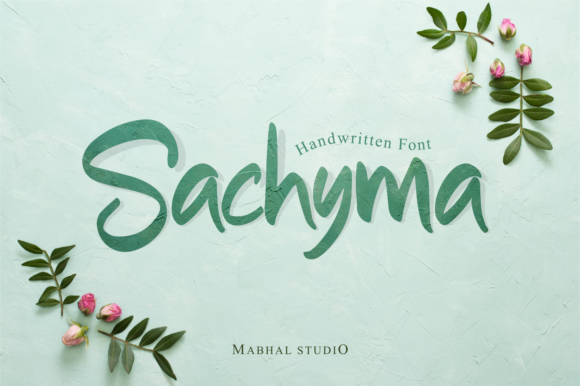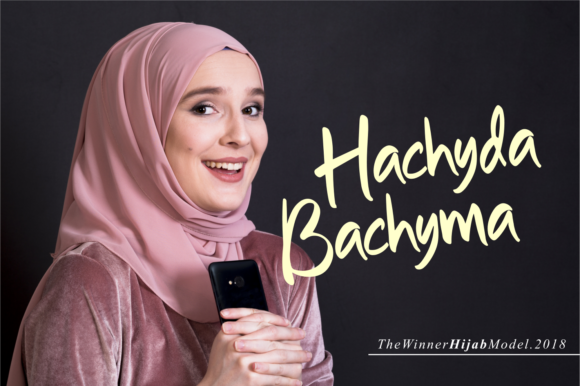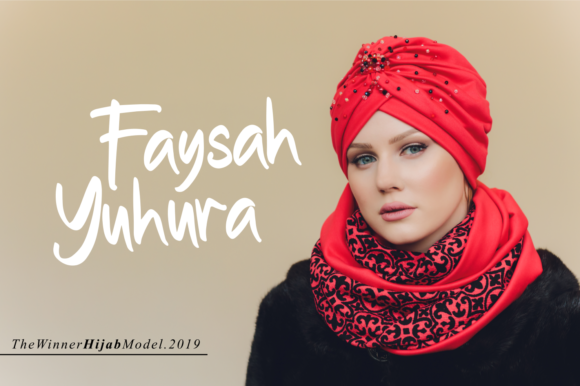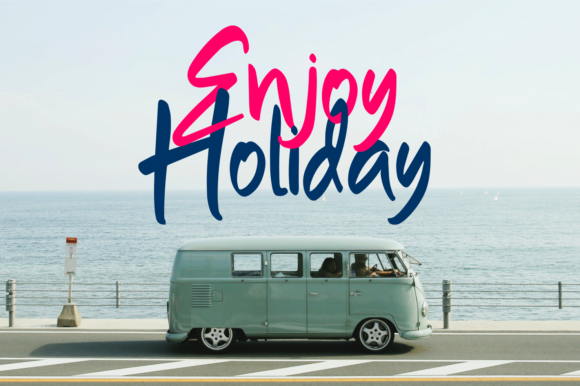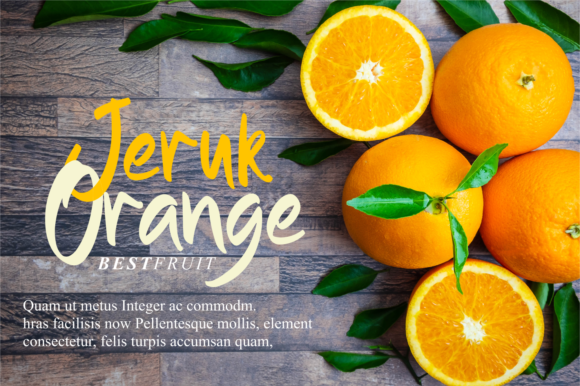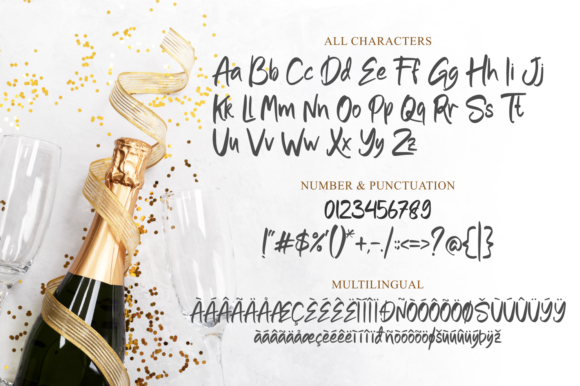
Sachyma Font
About Sachyma Font
Sachyma is a casual, fun script font, created by using a brush pen. Clean and a little bit quirky, this font is the perfect fit for all of your logos, branding, social media, and crafty DIY projects.